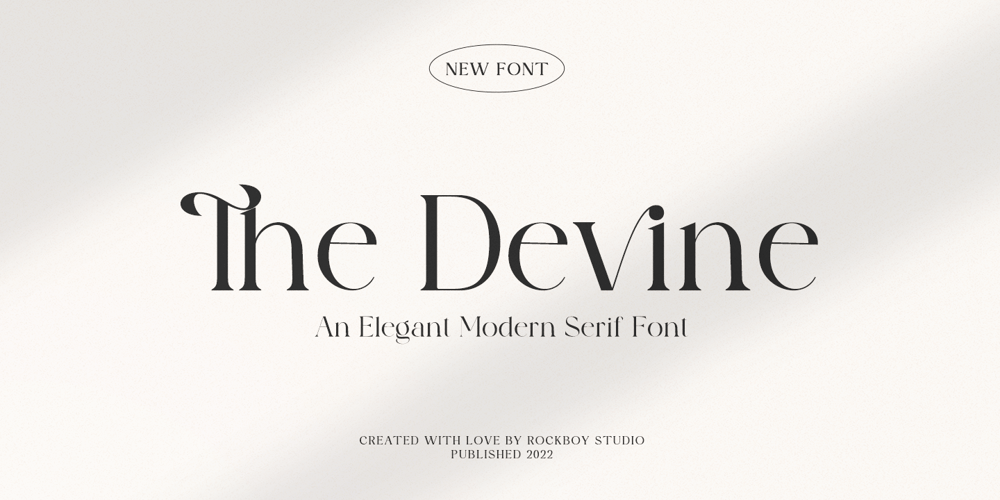
The Devine
The Devine font
The Devine Font Family was designed by Hayinah and published by Rockboys Studio. The Devine contains 1 styles and family package options. The Devine is a distinct, elegant and authentic serif font. Masterfully designed to become a true favorite, this font has the potential to bring each of your creative ideas to the highest level!